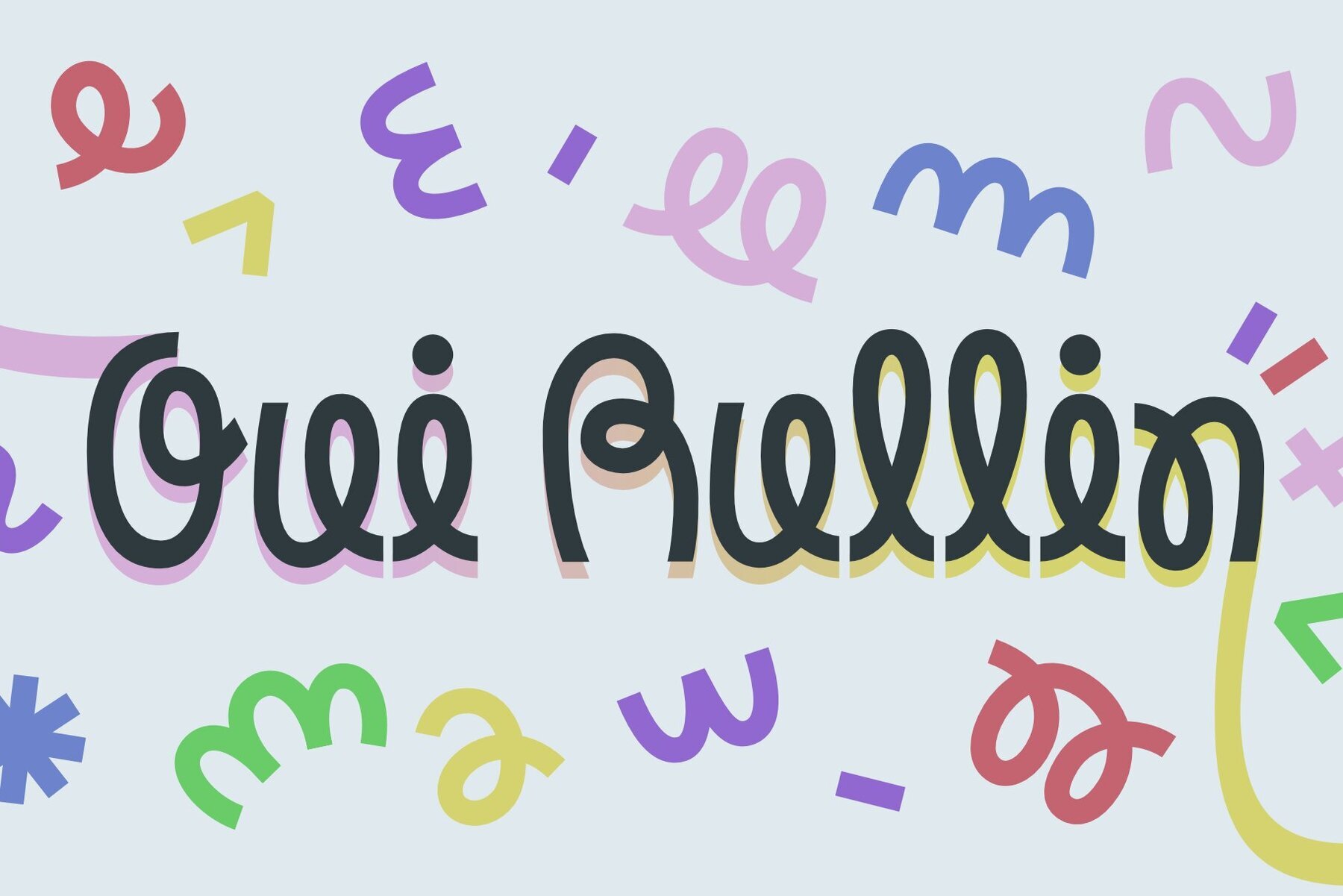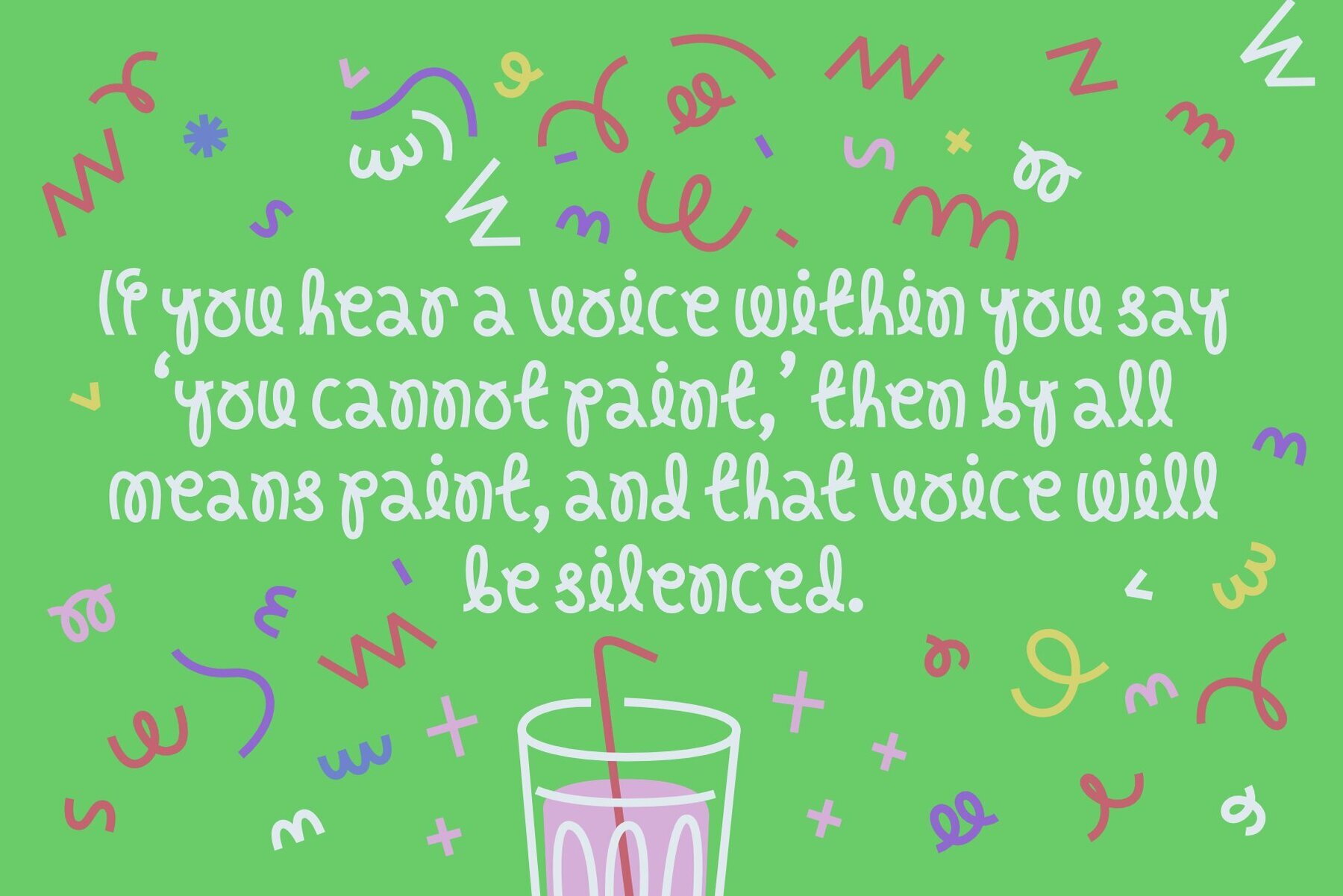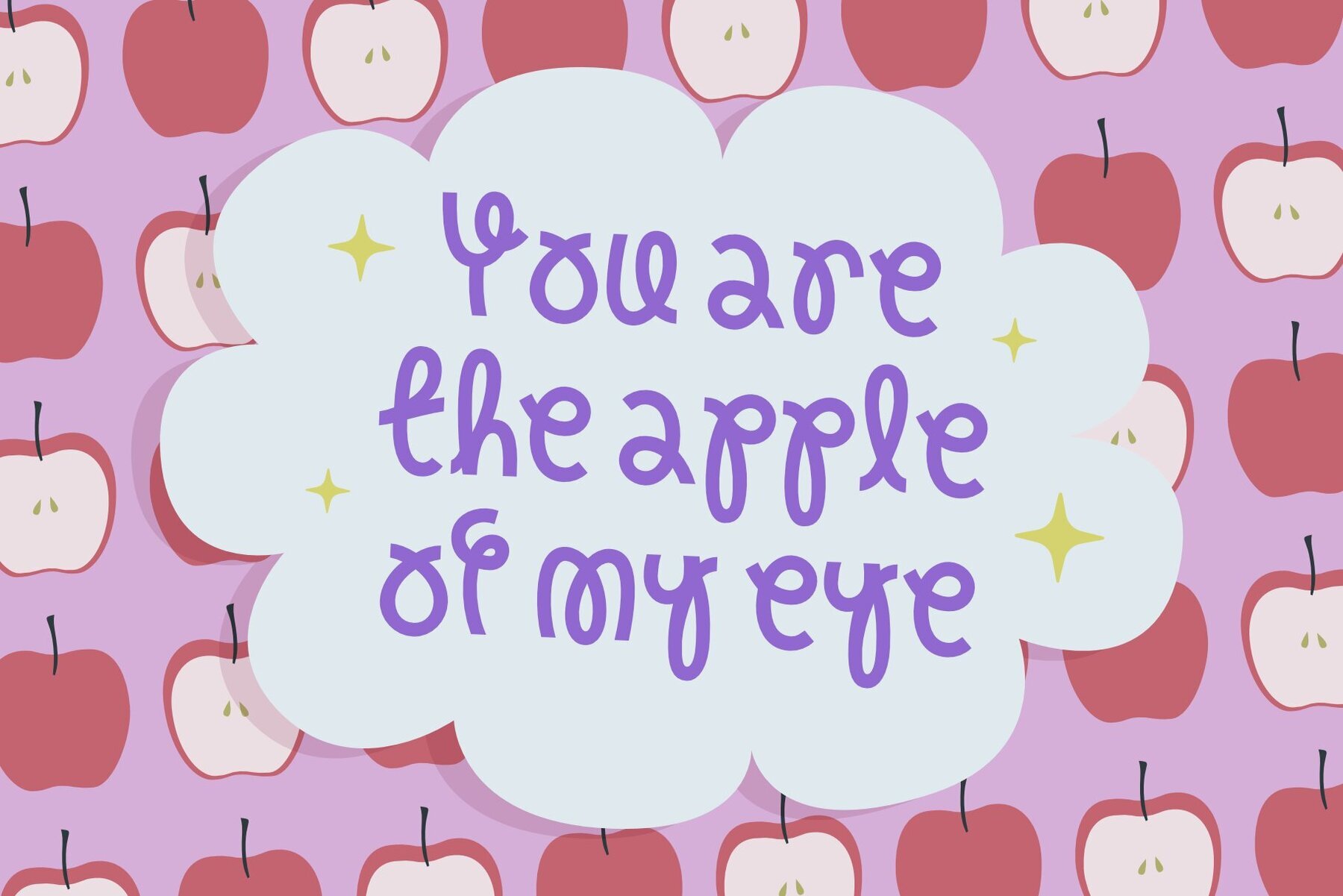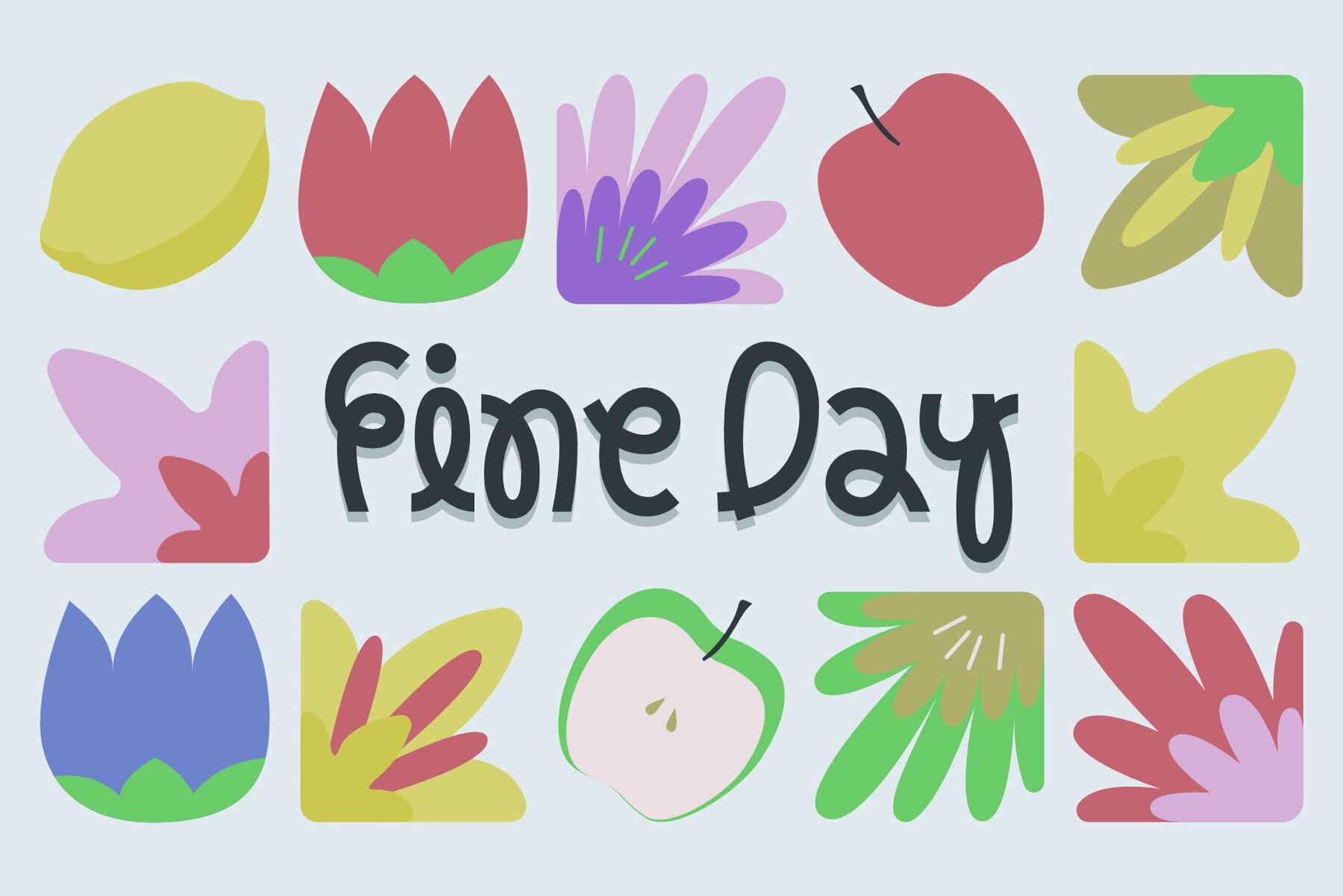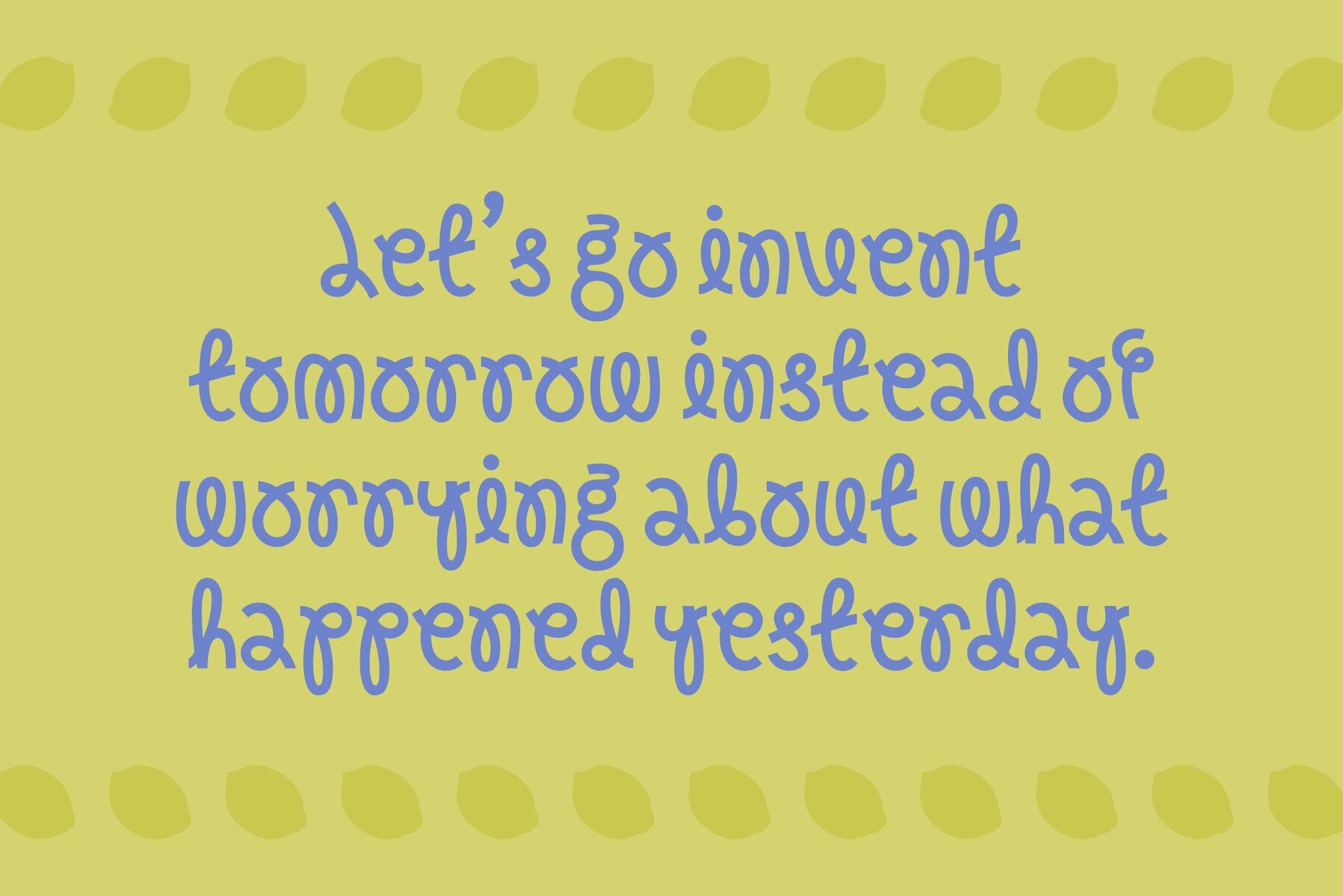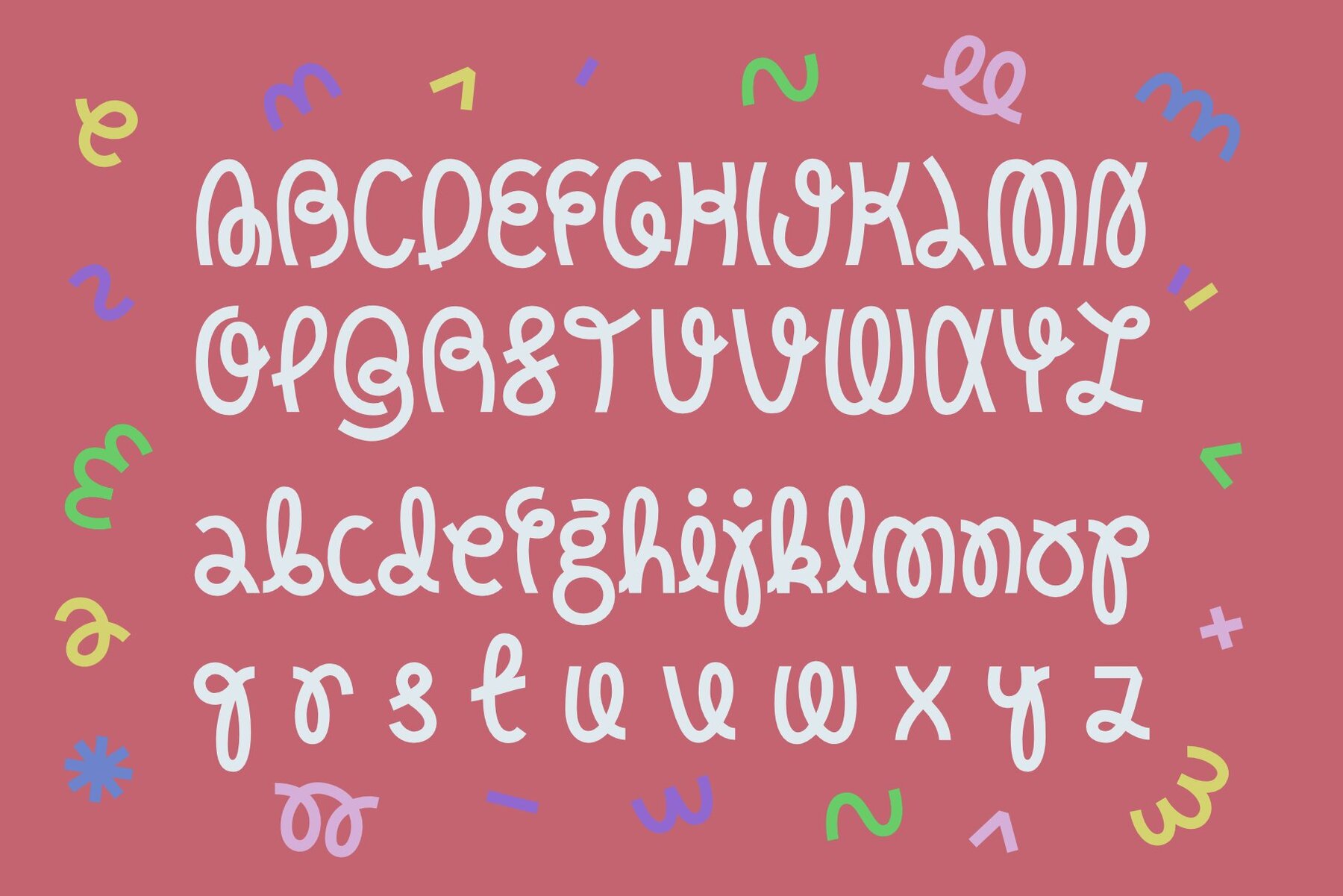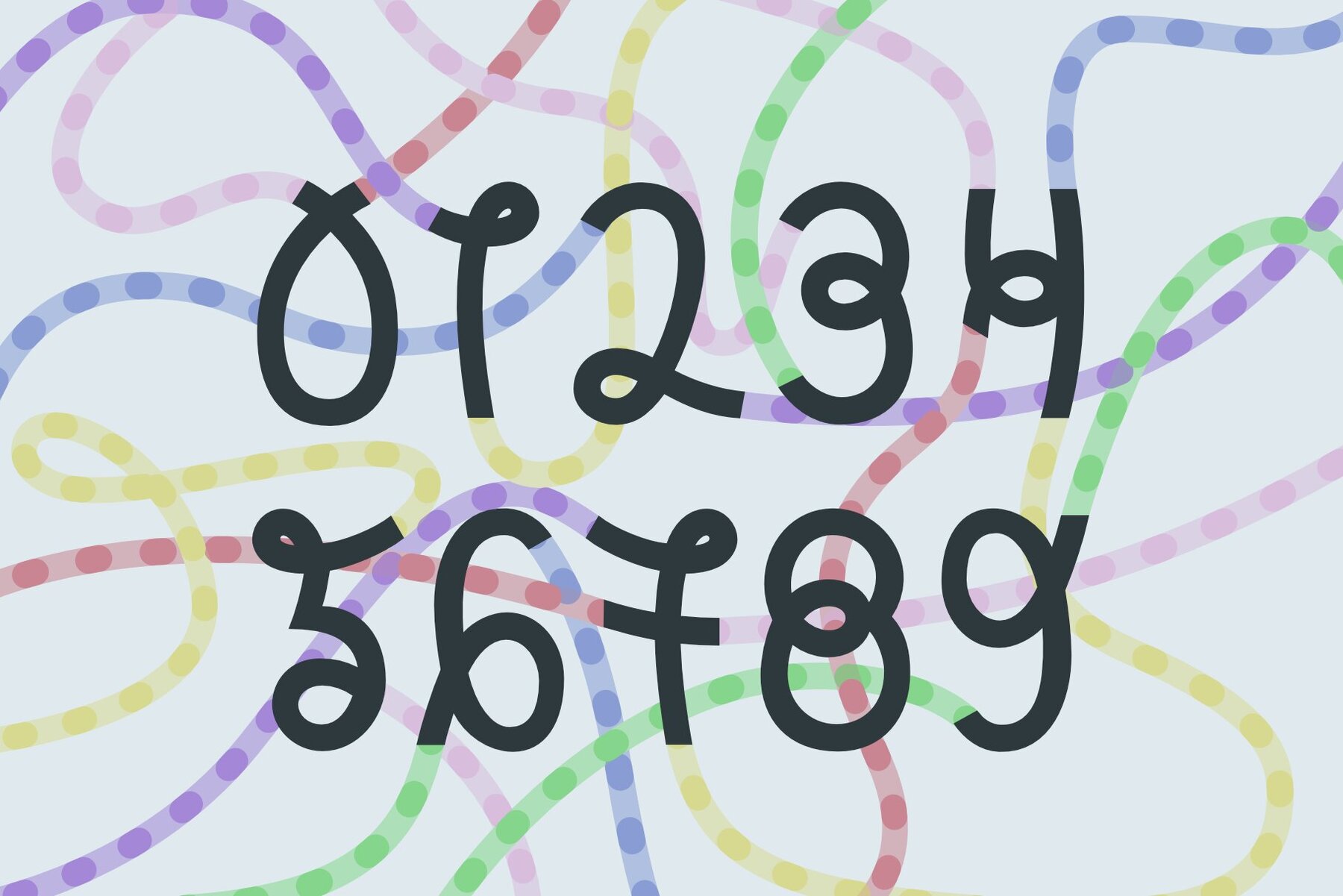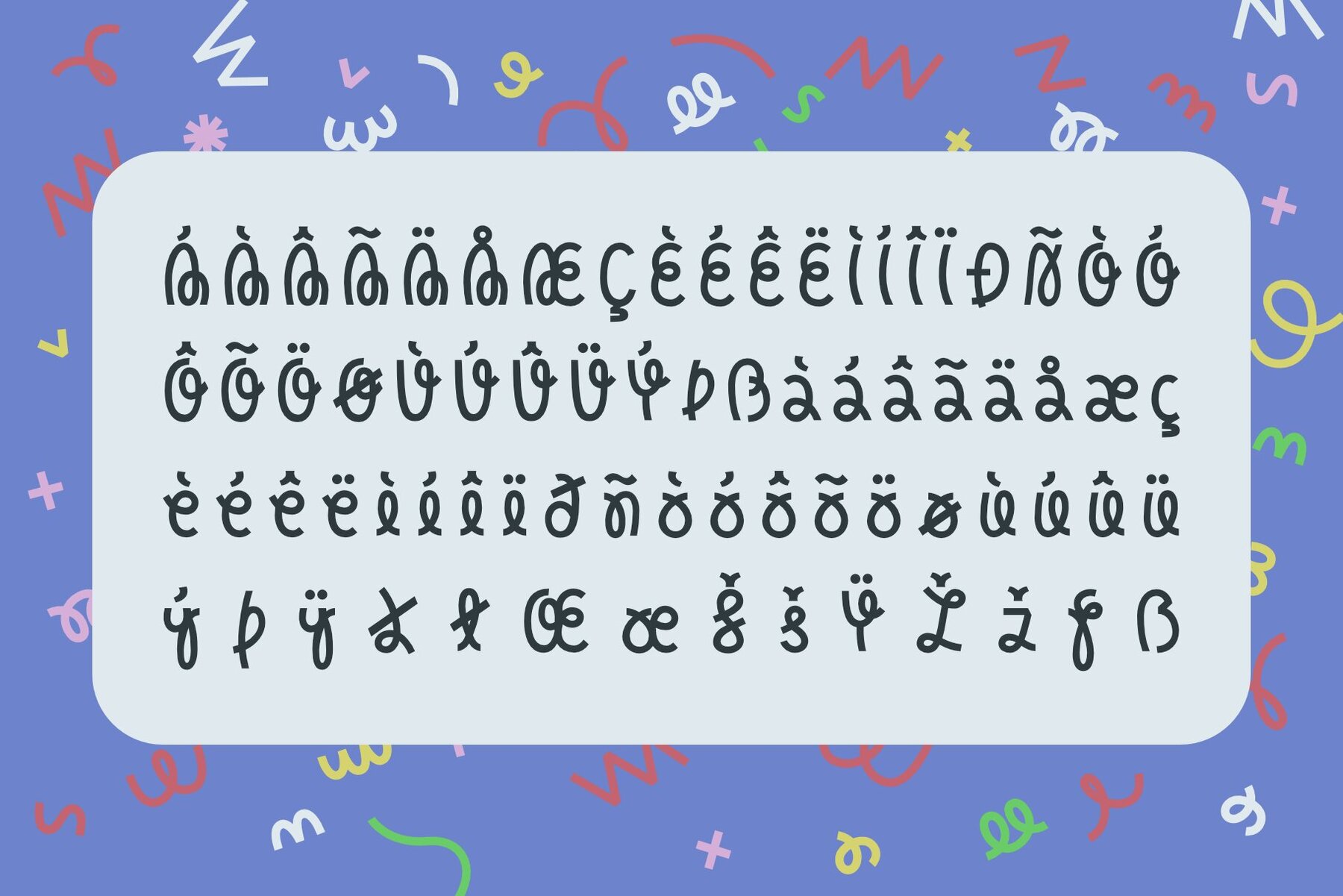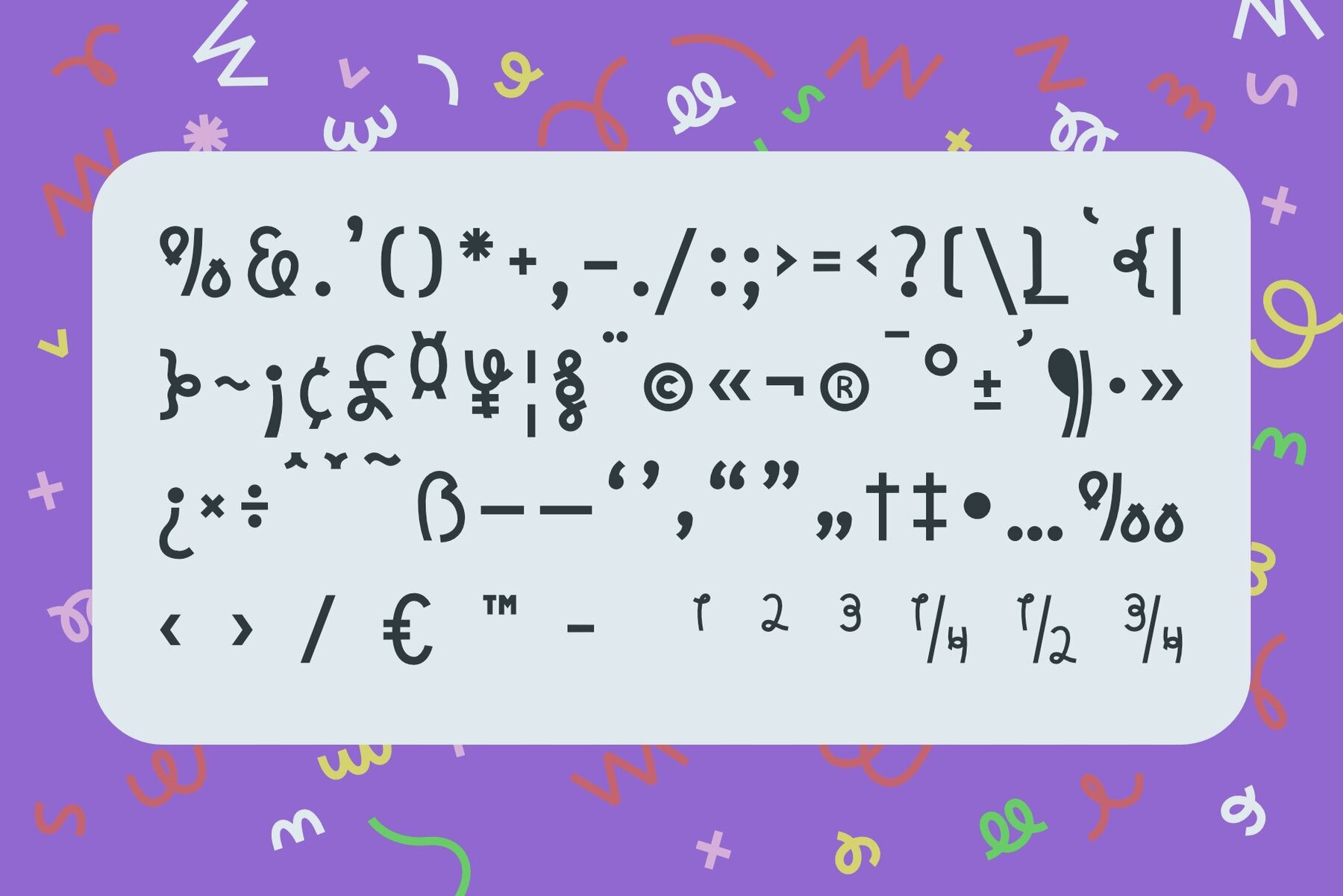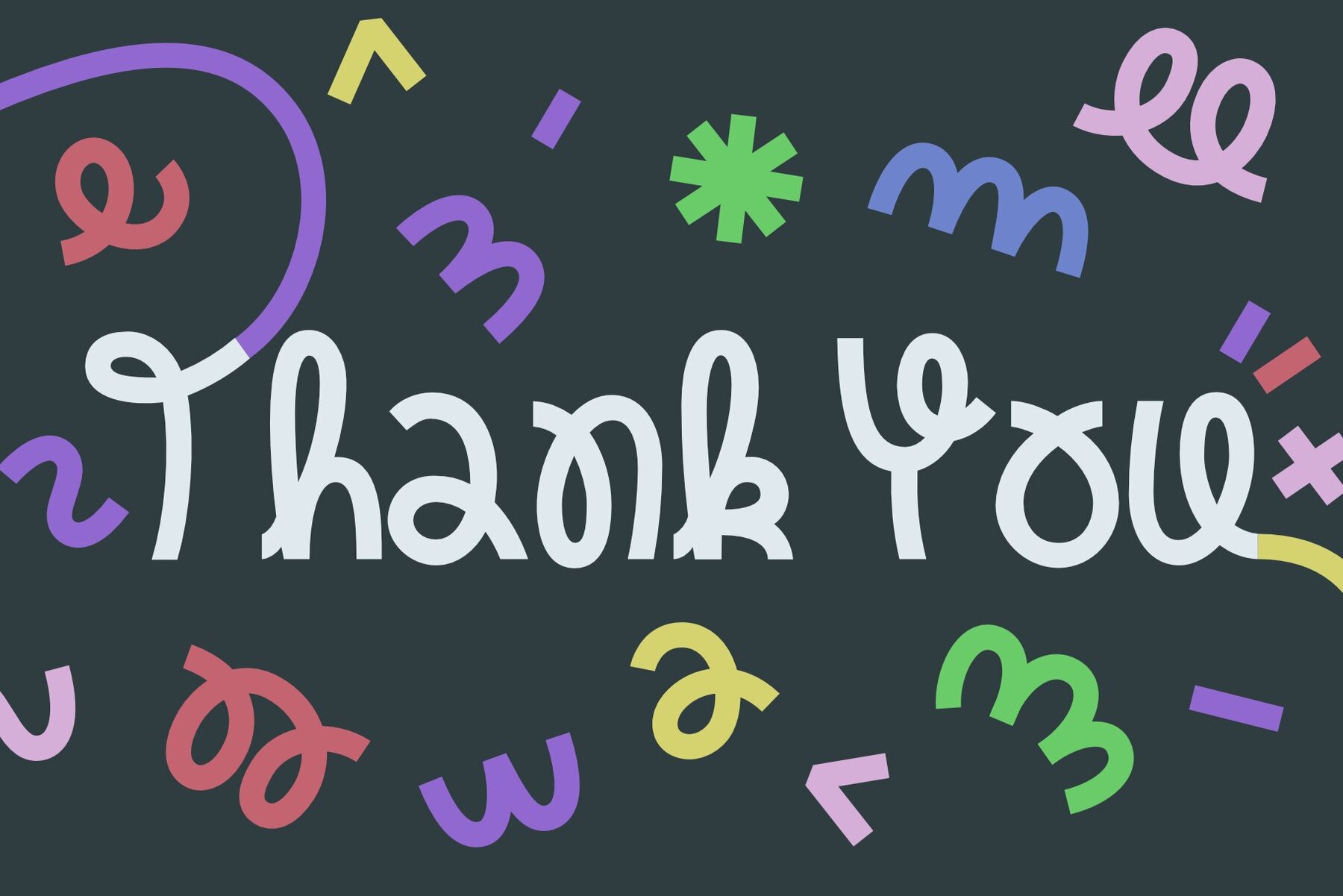
Oui Rullin Font
Oui Rullin
Oui Rullin is a whimsical display font that exudes warmth and spontaneity. Characterized by its rounded strokes and lively curves, it brings an engaging personality to any design. Each letter exhibits a charming imperfection, creating a friendly, handmade feel perfect for spreading positive energy. Ideal for projects imbued with creativity and a sense of childlike wonder, Oui Rullin is an irresistible choice for those looking to inject fun into their work. From greeting cards and children's books to packaging, posters, and social media graphics, Oui Rullin adds a distinct spark. It skillfully balances a casual flow with artistic flair, making it both approachable and unique. Whether you're designing for a cheerful brand or conveying a heartfelt message, this font transforms every word into a smile.Oui Rullin: A Playful Display Font Infused with Joy